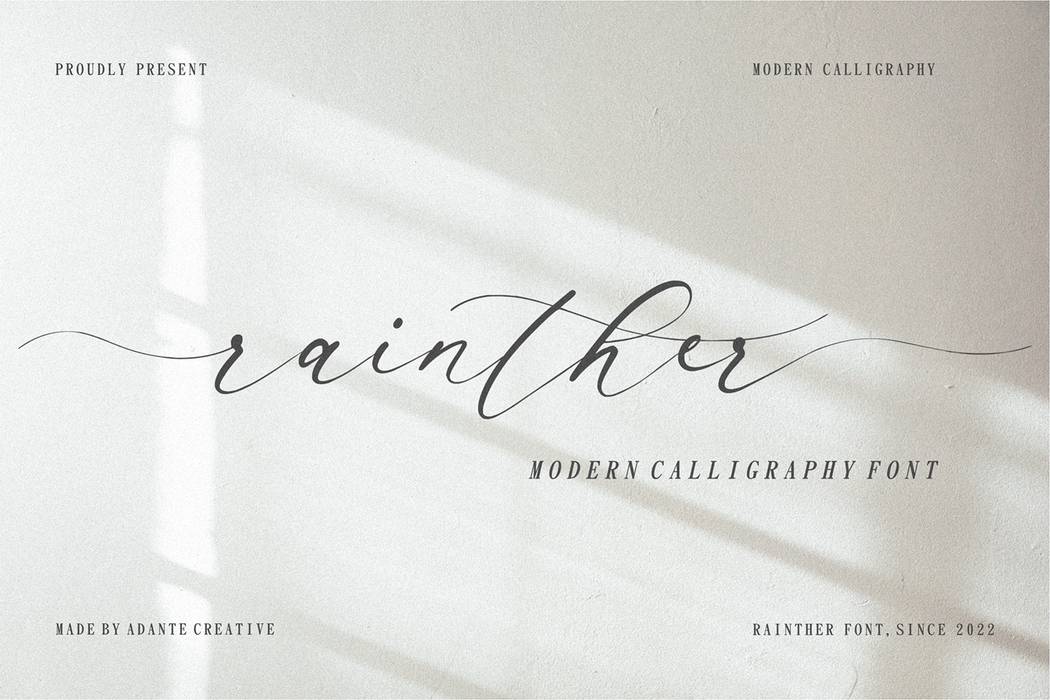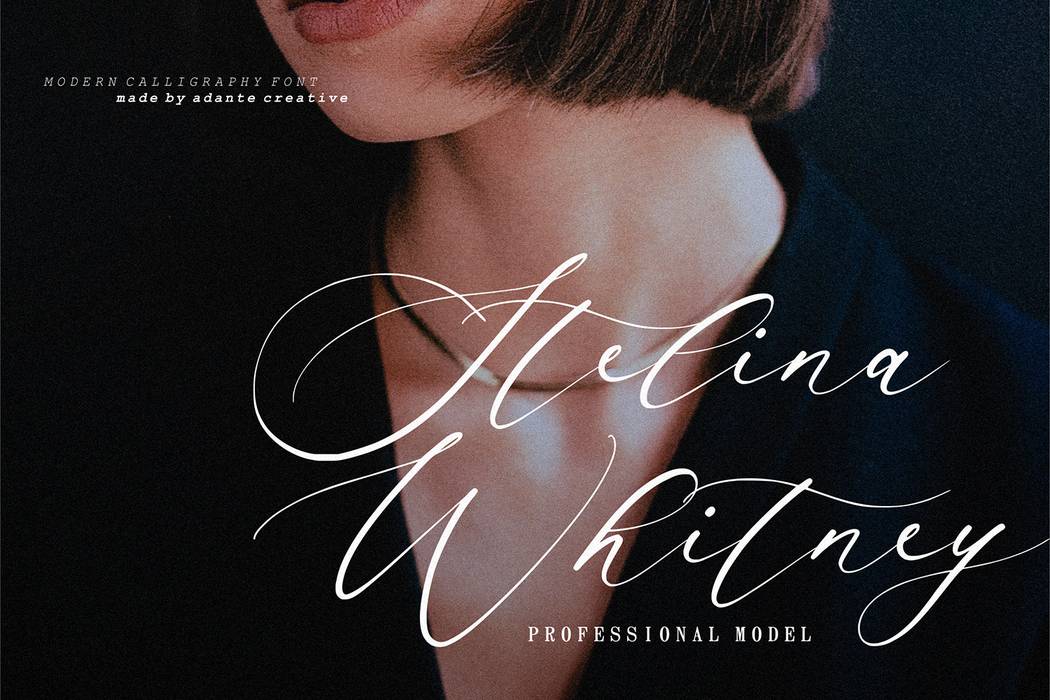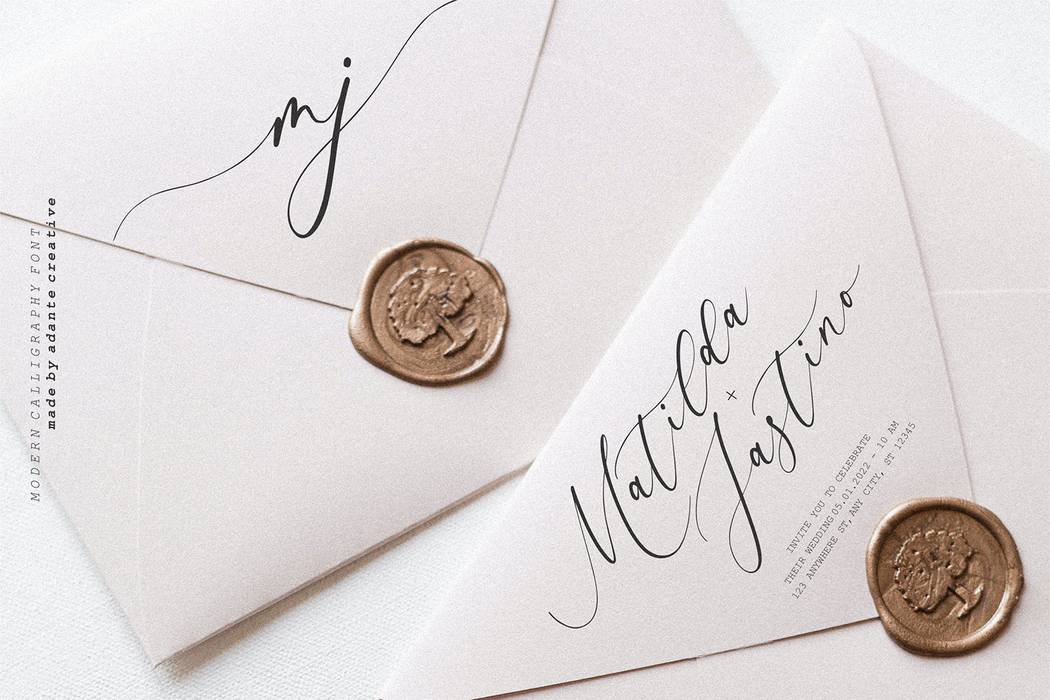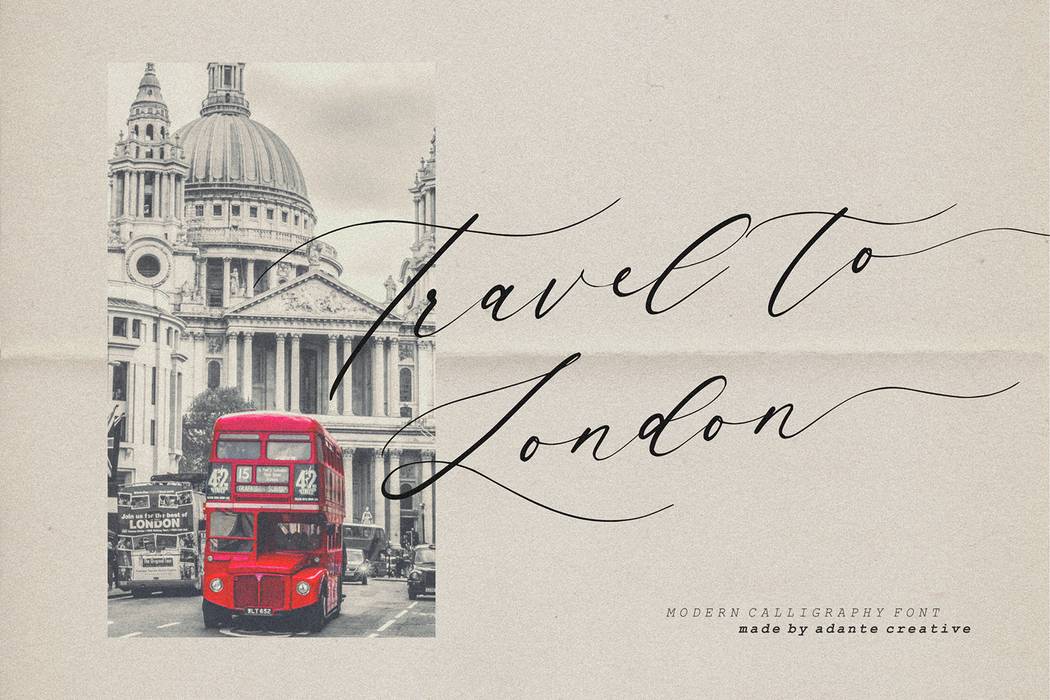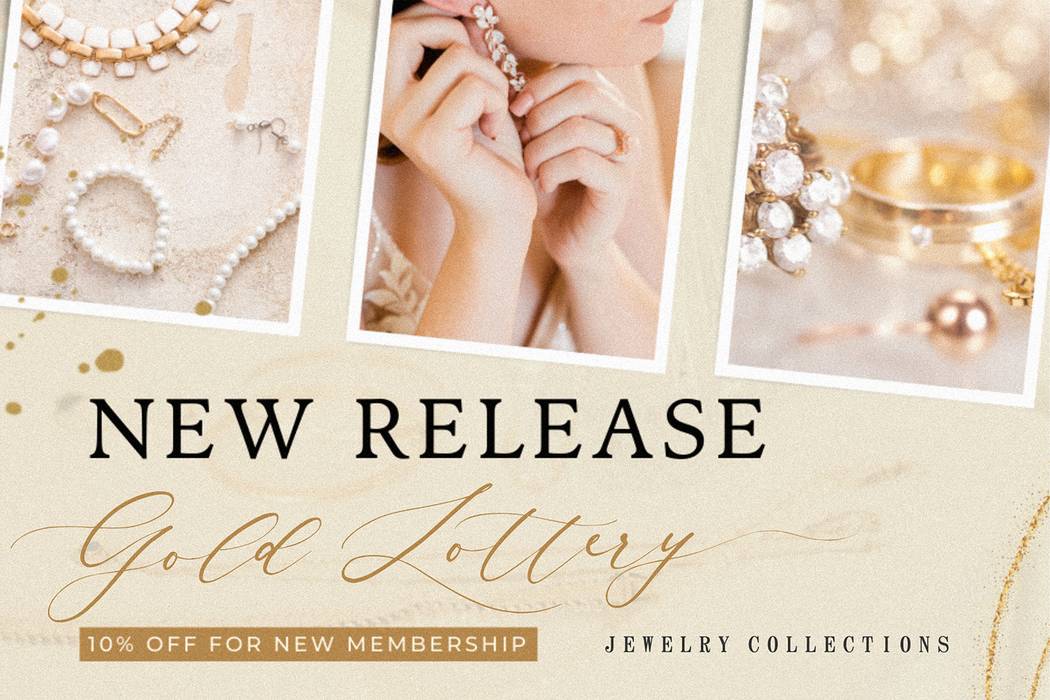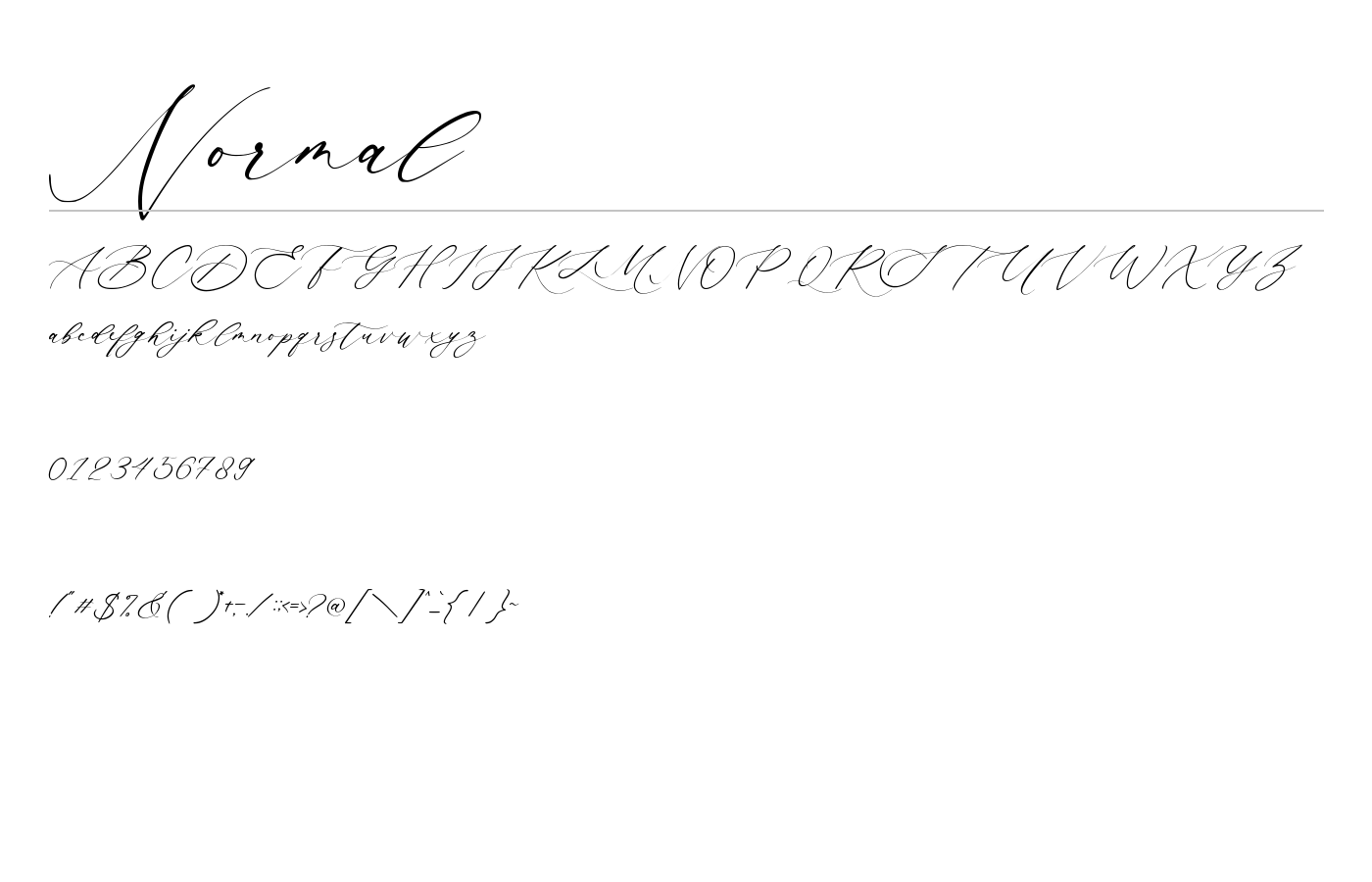
Rainther is an elegant, delicate script font featuring fine, flowing strokes and graceful curves that create a sophisticated handwritten look. Its light weight and airy style make it perfect for luxury branding, wedding invitations, and stylish editorial designs where a refined and romantic feel is desired. With its beautifully detailed letterforms and subtle flourishes, Rainther adds a touch of timeless charm to any creative project.
Rainther Font
About Rainther Font
| Font family | Rainther Font |
| Designer | Adante.Creative |